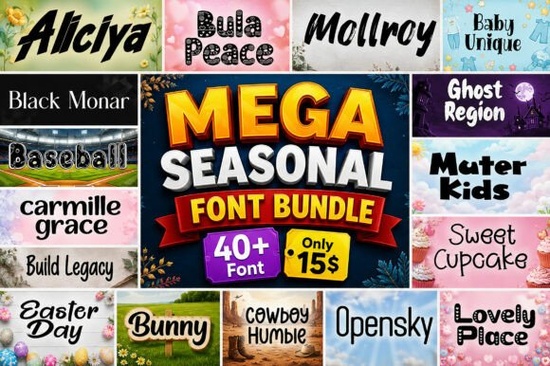
If you're looking for a reliable, all-in-one font collection to spice up your seasonal designs, the Mega Seasonal Bundle Font delivers exactly what you need. With over 40 high-quality fonts, this bundle covers everything from playful kids’ typefaces to bold holiday displays perfect for crafters, small business owners, and designers who want to create consistently fresh content.
What’s in the Mega Seasonal Bundle Font?
This bundle brings together a diverse mix of styles that work across many creative projects. You’ll find:
- Script & handwritten fonts – ideal for invitations, greeting cards, and social media posts with a personal touch.
- Kids and cute fonts – great for baby shower invites, children’s books, or fun t-shirt designs.
- Holiday and seasonal fonts – perfect for Christmas, Easter, Halloween, and other festive themes.
- Display and decorative fonts – stand out on posters, stickers, mugs, and branding materials.
Each font is carefully selected for clarity, style, and usability no blurry or hard-to-read options. Whether you’re designing for Etsy, print-on-demand platforms, or personal gifts, these fonts are ready to go.
Why this bundle works for both beginners and pros
Where can you use these fonts?
These aren’t just pretty letters they’re practical tools for real-world projects. Try them for:
- T-shirt designs and apparel branding
- Custom mugs, tumblers, and drinkware
- Invitations and greeting cards (birthday, baby shower, wedding)
- Social media graphics and Instagram stories
- Posters, flyers, and promotional materials
- Scrapbooking and digital journaling
- Logo and brand identity elements
Whether you’re making one-off gifts or scaling up for a store, this variety keeps your output fresh and engaging.
How do these fonts compare to others?
Many font bundles promise a lot but deliver limited variety or poor compatibility. The Mega Seasonal Bundle Font stands out because it includes multiple styles tailored to different needs. It’s not just about holidays it also has modern, clean scripts and unique decorative options that fit everyday projects.
With so many options, you’ll always have the right font for the moment whether it’s springtime, winter, or just another creative day.